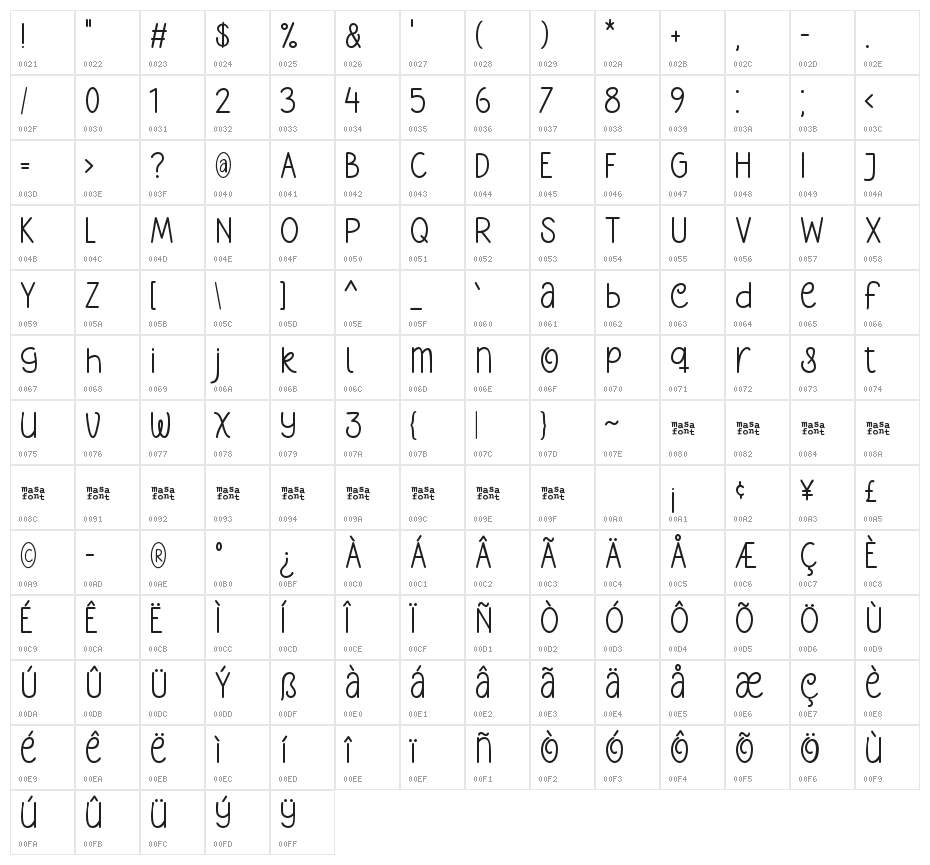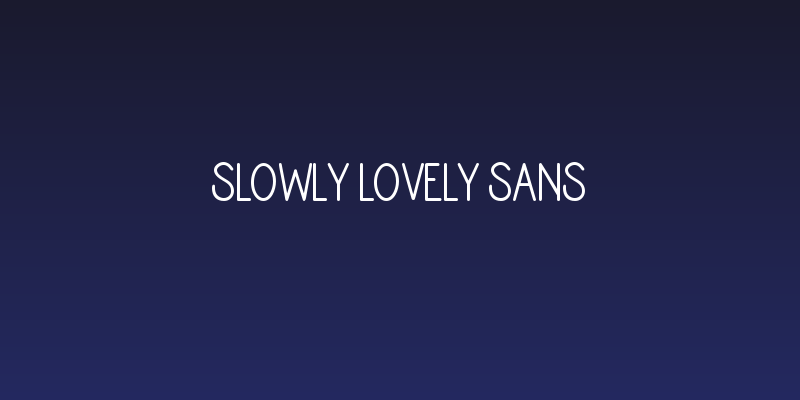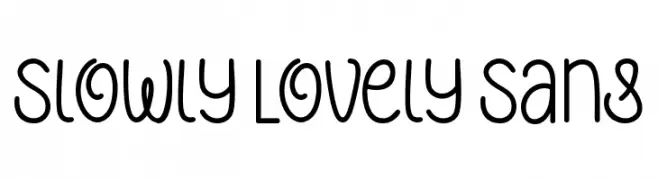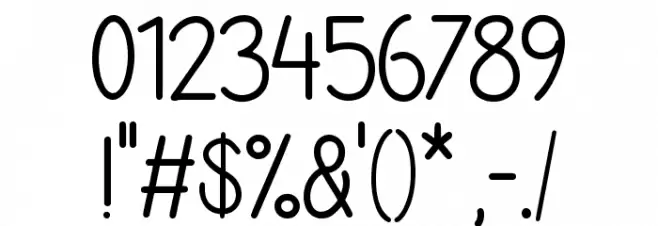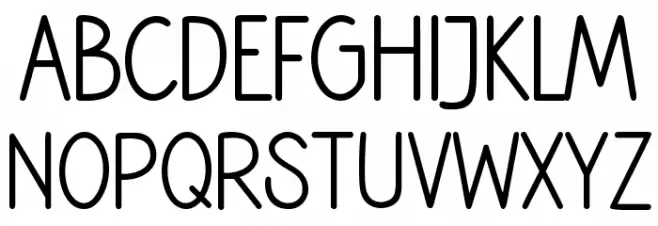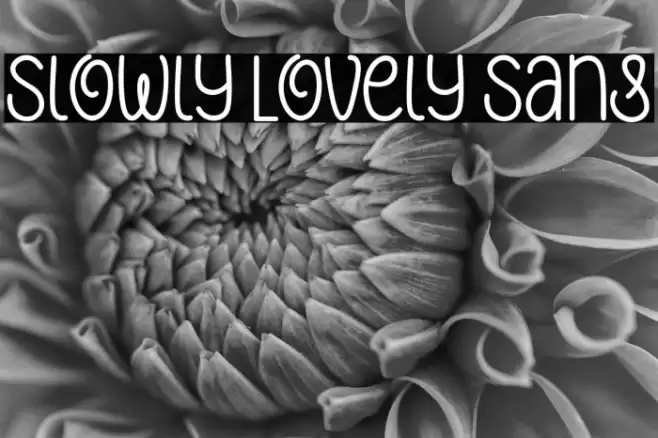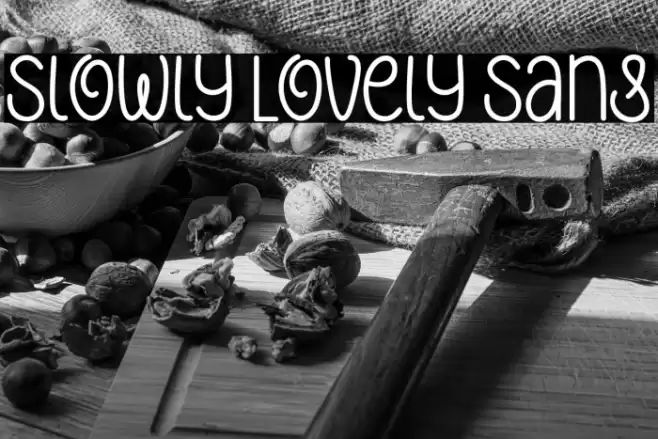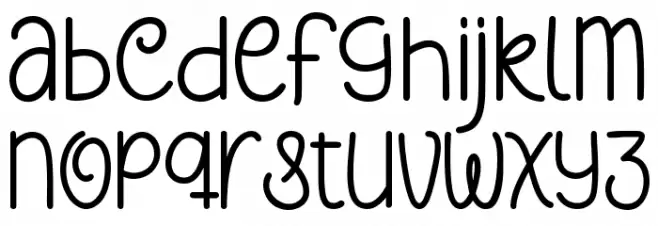
Slowly Lovely Sans Font
Slowly Lovely Sans Description
A playful, handwritten style font with a casual and friendly appearance, featuring slightly irregular strokes and a whimsical character.
| Overall Style | Casual, Playful, Friendly |
| Use Case | Headlines, Body text, Invitations, Greeting cards |